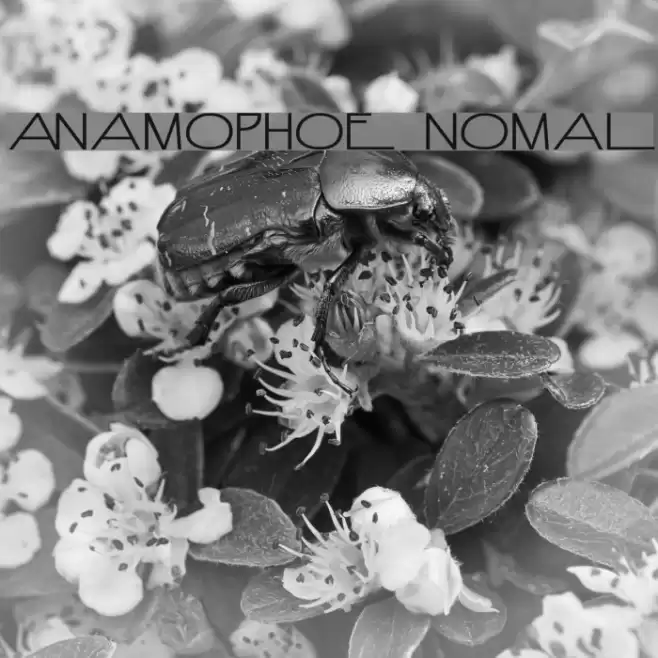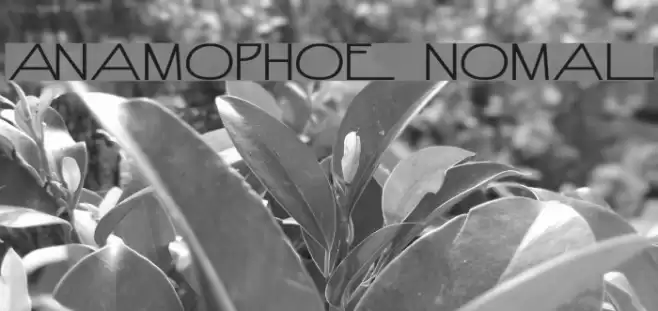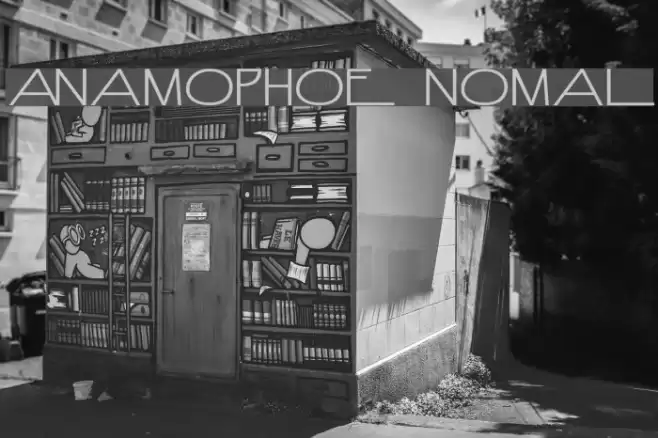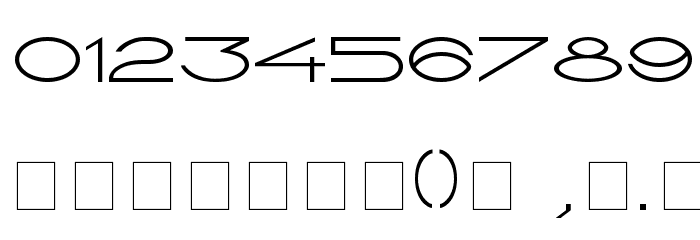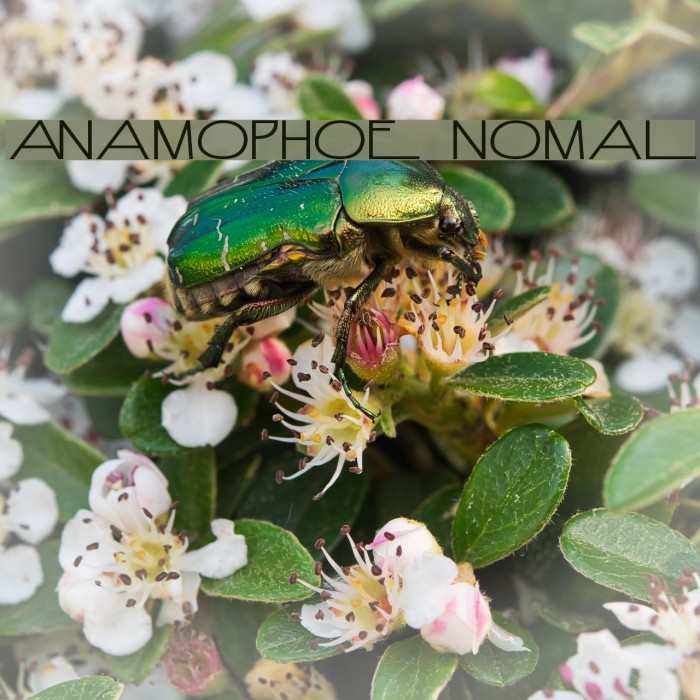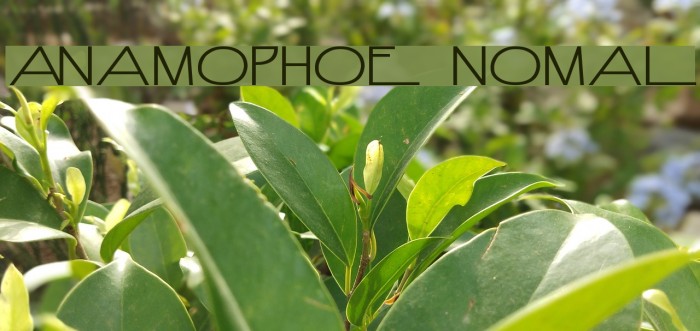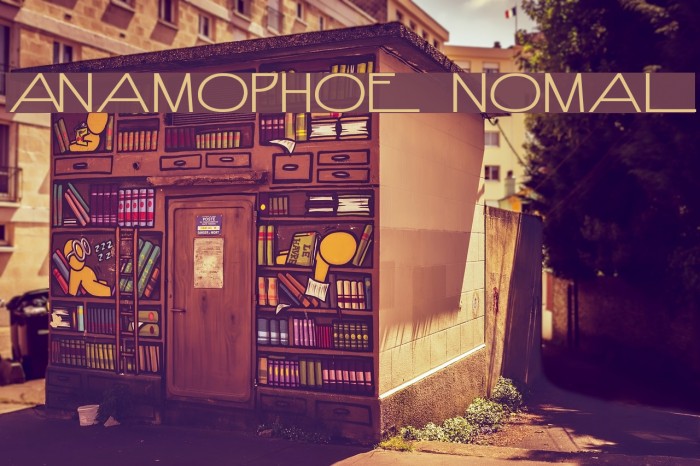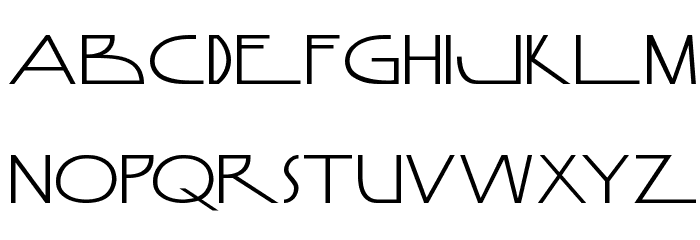
Anamorphosée Normal Font
Anamorphosée Normal Description
This font features a unique and futuristic design with geometric elements that create a sense of movement and modernity. The uppercase letters are characterized by sharp angles and clean lines, while the lowercase letters maintain a consistent style that complements the uppercase. The numbers are designed with a similar aesthetic, ensuring a cohesive look across all characters. Special characters are included, maintaining the same geometric and modern style. The overall appearance is sleek and sophisticated, making it suitable for projects that require a contemporary and innovative touch.
A futuristic and geometric font with sharp angles and clean lines from Crazy fonts.